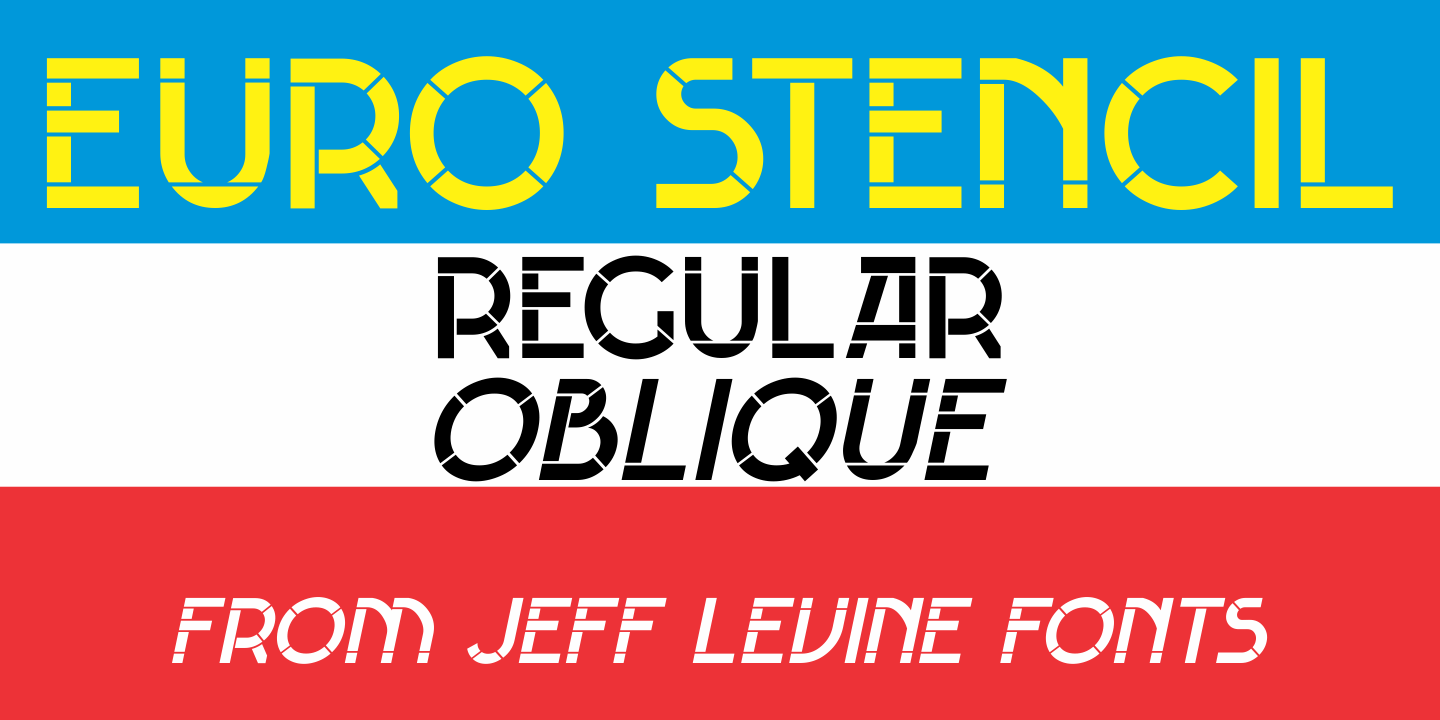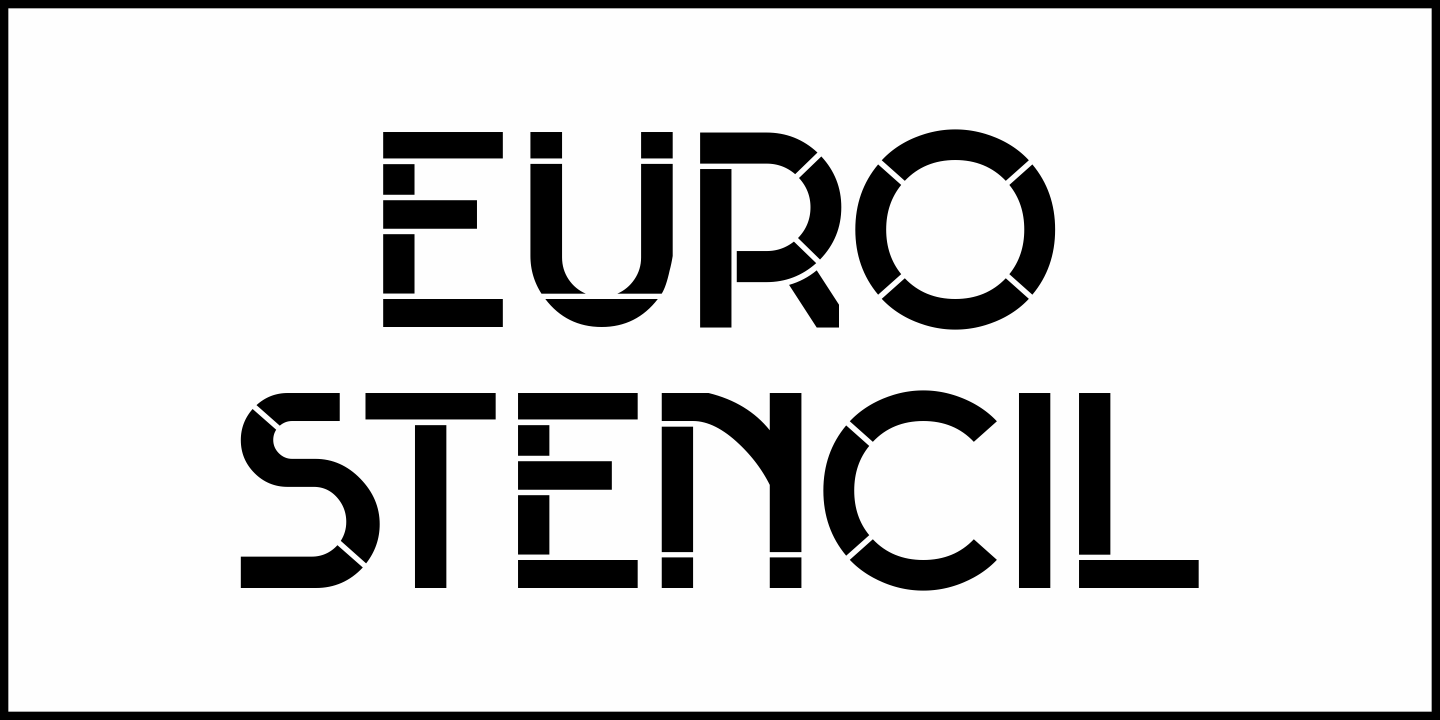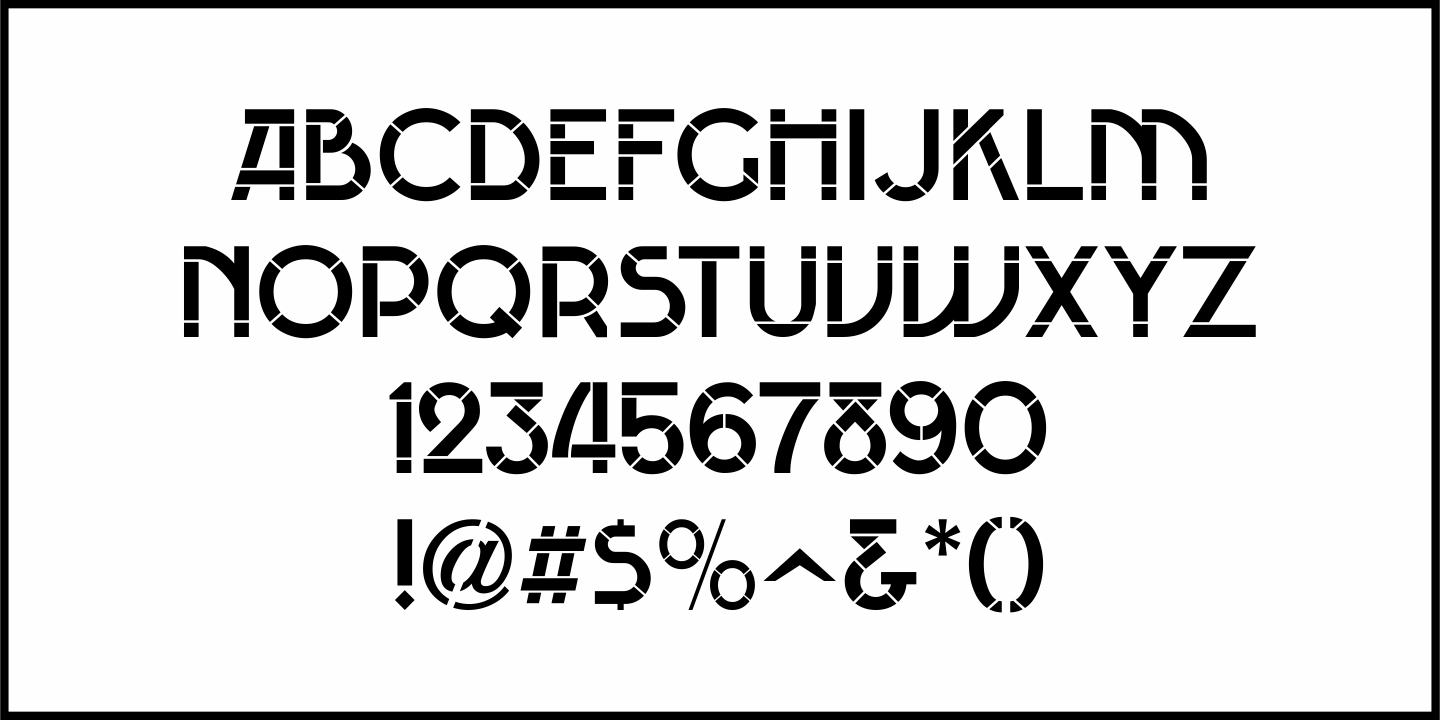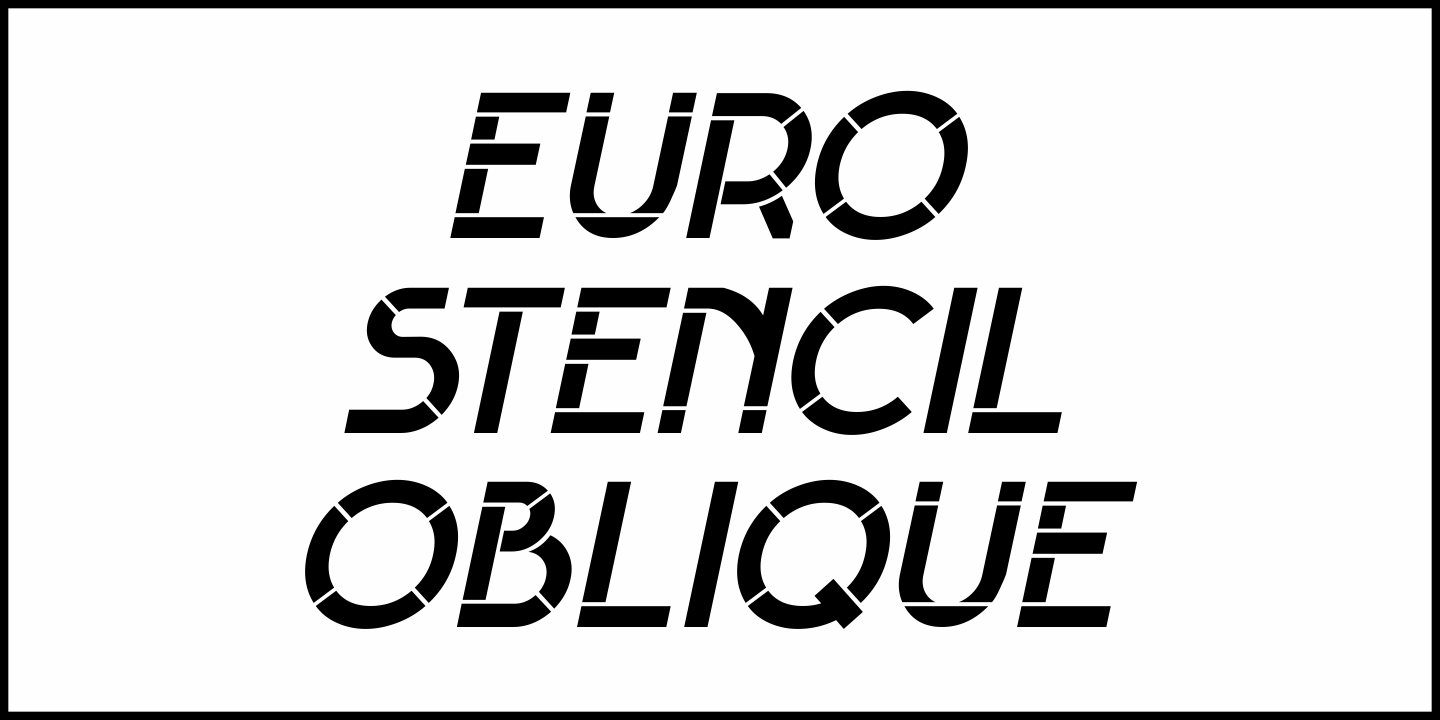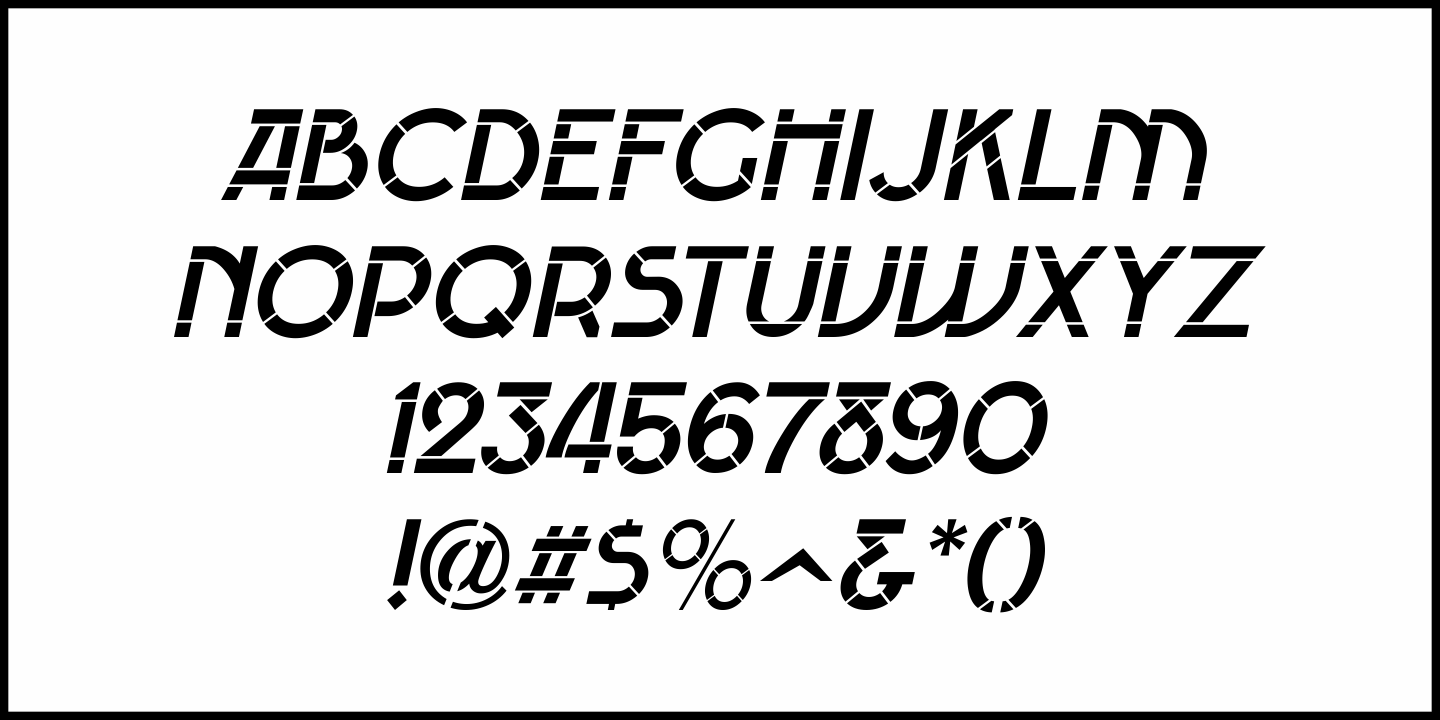
Euro Stencil
An online photo gallery showcased a number of vintage and unique signs around Europe – mostly from Germany.
One particular sign (“1818-Hoofdkant Spaarbank-1921”) was formed in metal and with stencil letters of a distinctive 1970s feel. This served as the model for Euro Stencil JNL, which is available in both regular and oblique versions.